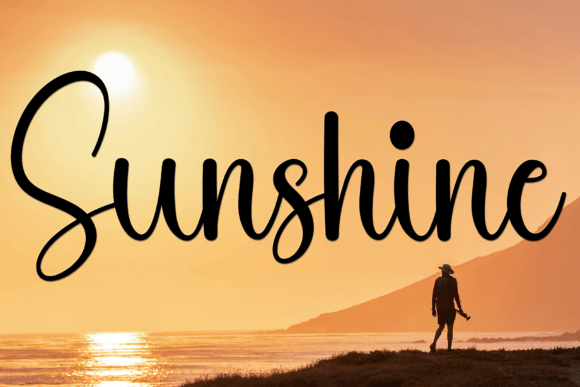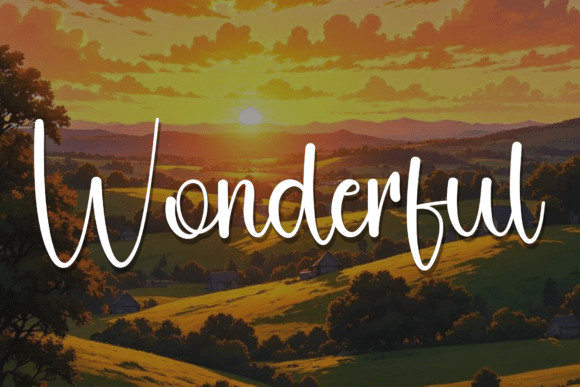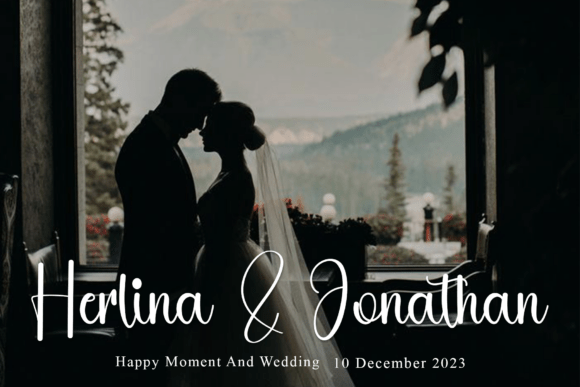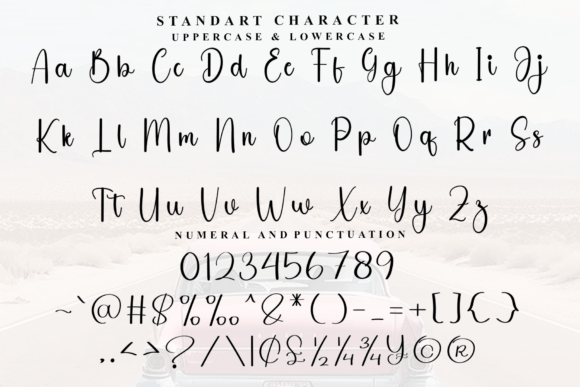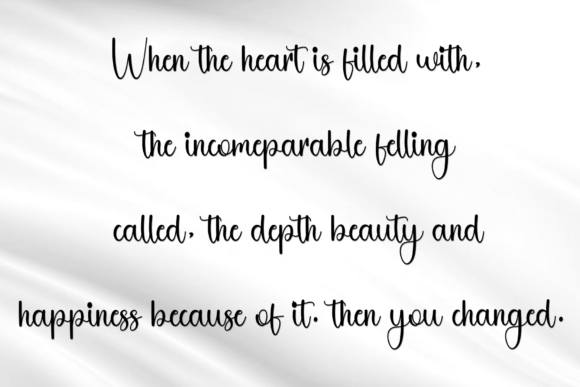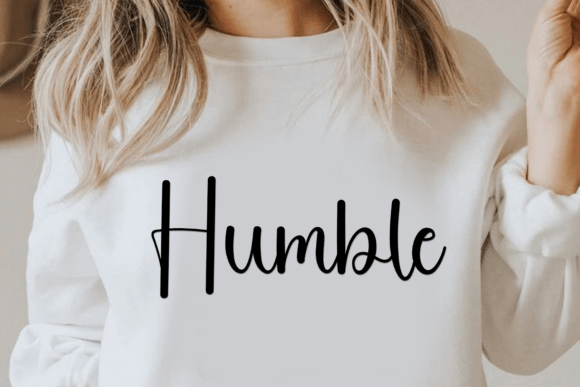
Introduction to Santa Wonderful Font
Santa Wonderful is a beautiful and eye-catching font designed with a soft, unique touch.
Its distinctive strokes give it a special character, making it meaningful and versatile for future use With various characters, itโs perfect for design projects, crafts, and other creative works.
Santa Wonderful Font offers exceptional quality and versatility, making it a valuable addition to your design toolkit. Whether you’re creating for personal projects or commercial use, Santa Wonderful Font delivers professional results.